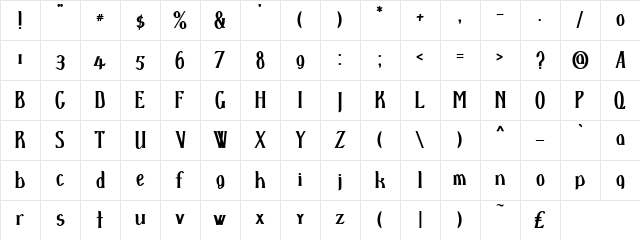
d'SpenserBold Normal Free Font
d'SpenserBold Normal
Design Context for d'SpenserBold
d'SpenserBold is a composed and adaptable typeface that performs quietly and consistently across a wide range of design contexts. Its bold stroke weight gives it real presence on the page.